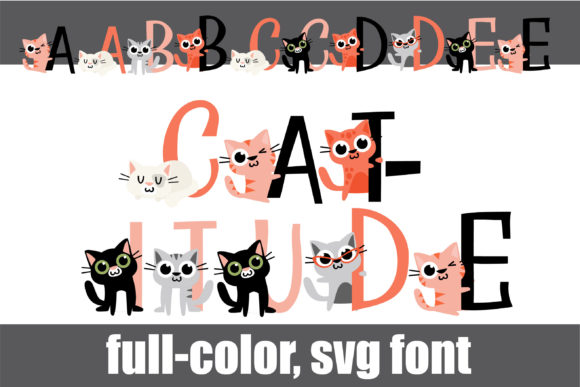
Looking for the best font for your cat memes? Look no further than Catitude Font! Created by Illustration Ink, this colorful font family features adorable cats on each uppercase letter, making it the purr-fect addition to any cat lover's font collection.
But Catitude Font isn't just cute, it's also functional. With a lowercase sans-serif option without the cats, you can easily mix and match to create unique and eye-catching designs. Plus, the OpenType full-color (SVG) fonts are easy to install on both Mac and Windows operating systems.